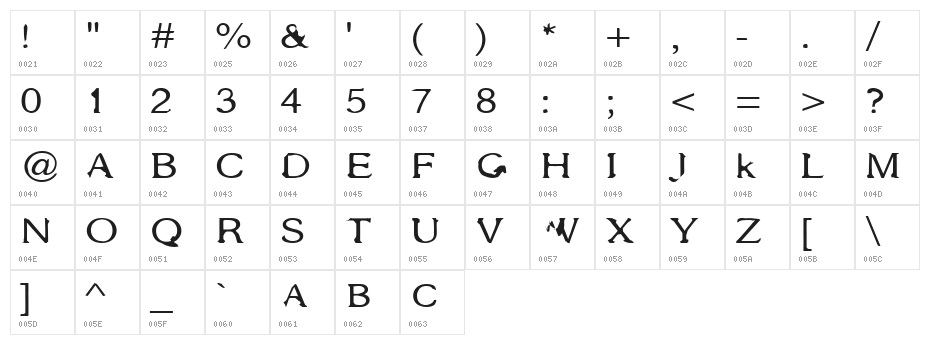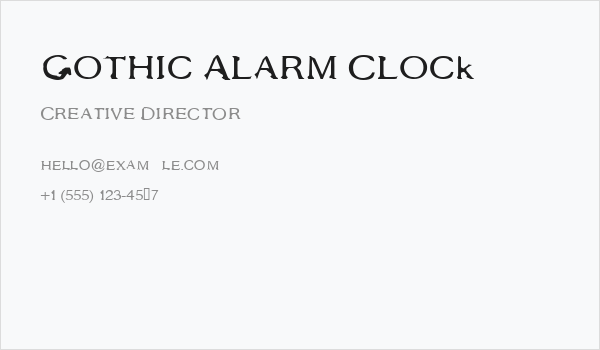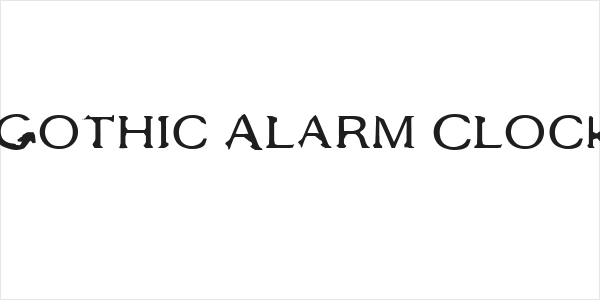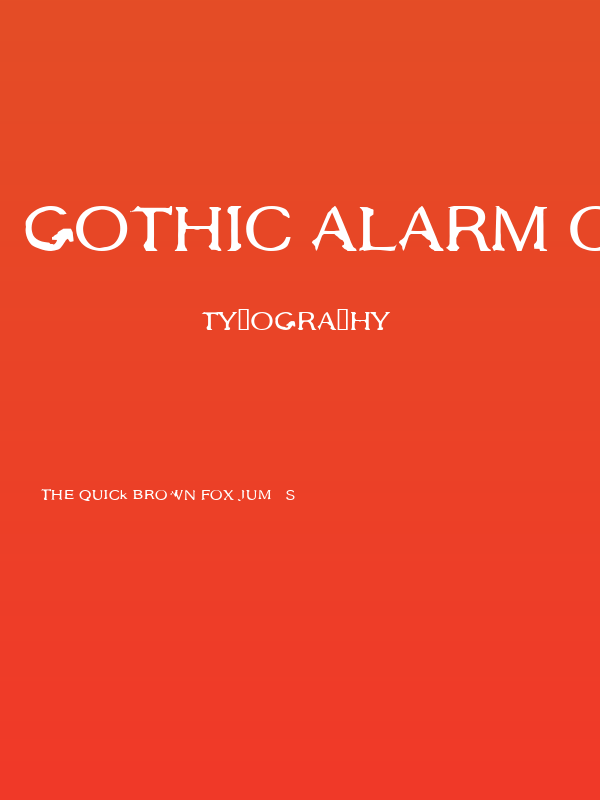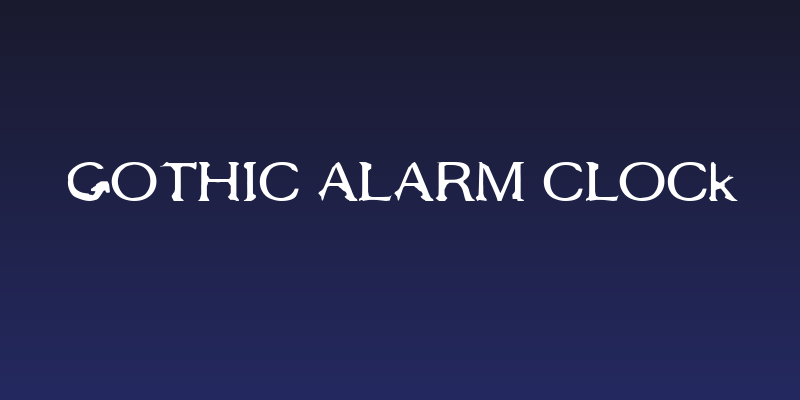
Gothic Alarm Clock Font
Gothic Alarm Clock Description
This font features a bold and dramatic style with a gothic influence, characterized by sharp, angular serifs and a strong presence. The uppercase letters are particularly striking, with a sense of grandeur and formality. The lowercase letters maintain the same boldness, creating a cohesive look throughout. Numbers and special characters are equally bold, ensuring consistency across all text elements. The font's design is reminiscent of traditional gothic scripts, yet it incorporates modern elements that make it versatile for various uses.
| Overall Style | Gothic, Vintage |
| Proposed Projects | Ideal for projects requiring a strong visual impact, such as posters, book covers, branding, and logos. It can also be used for themed events or products that require a gothic or vintage aesthetic. |